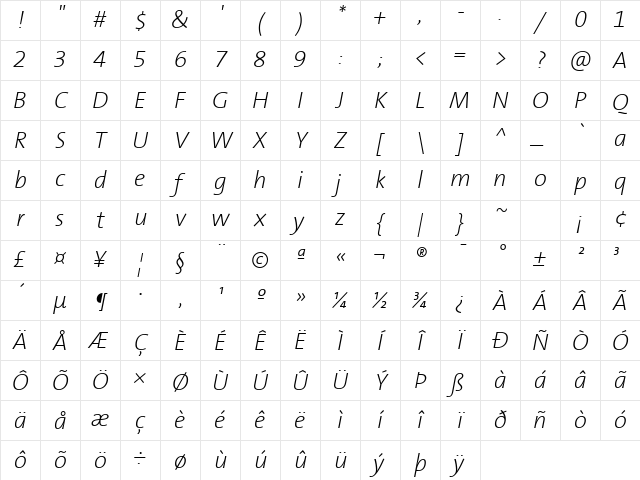
TheSans Italic
Foundry: Copr. Luc[as] de Groot <www.FontFabrik.com>
Complete TheSans Italic glyph index. Displaying only characters natively supported by TheSans Italic font.
Design Context for TheSans
TheSans is a composed and adaptable typeface that performs quietly and consistently across a wide range of design contexts. The slanted form adds forward momentum and visual energy.
Pro Tip: Use TheSans for emphasis, pull quotes, and subheadings where its slanted energy can add rhythm to the layout.
Who designed the TheSans Italic font?